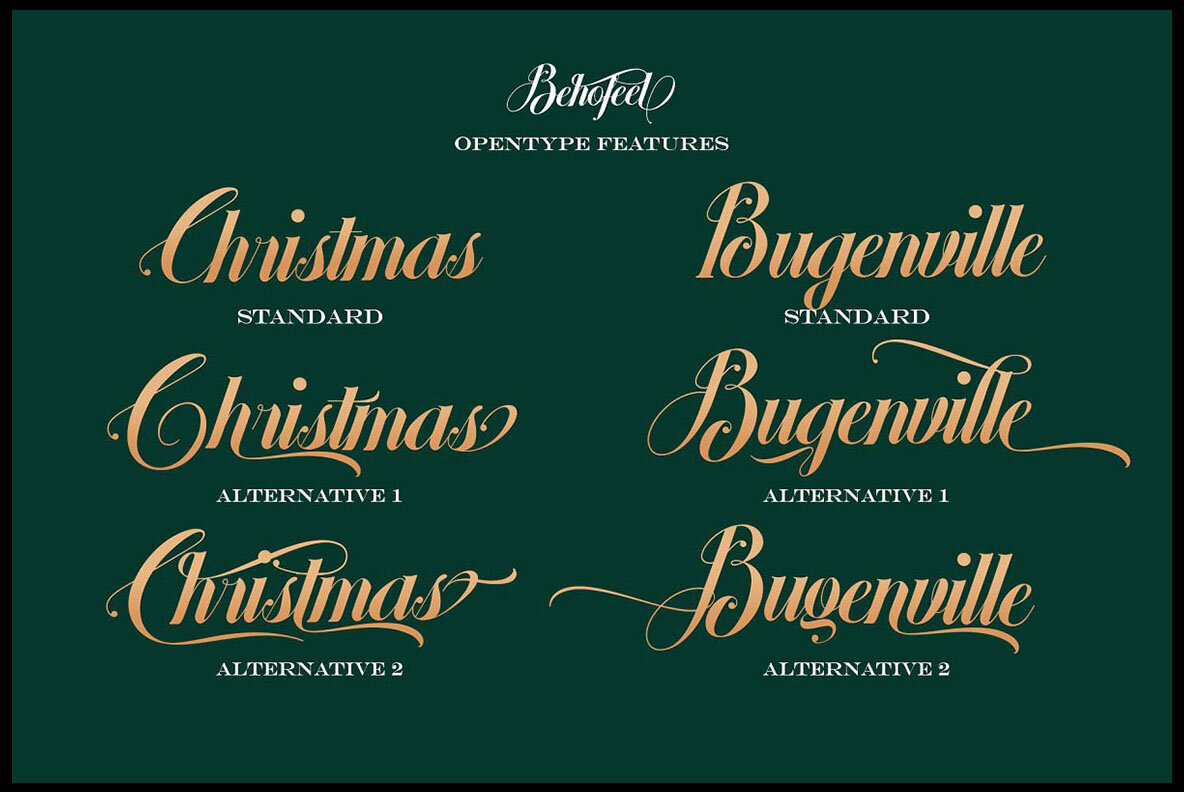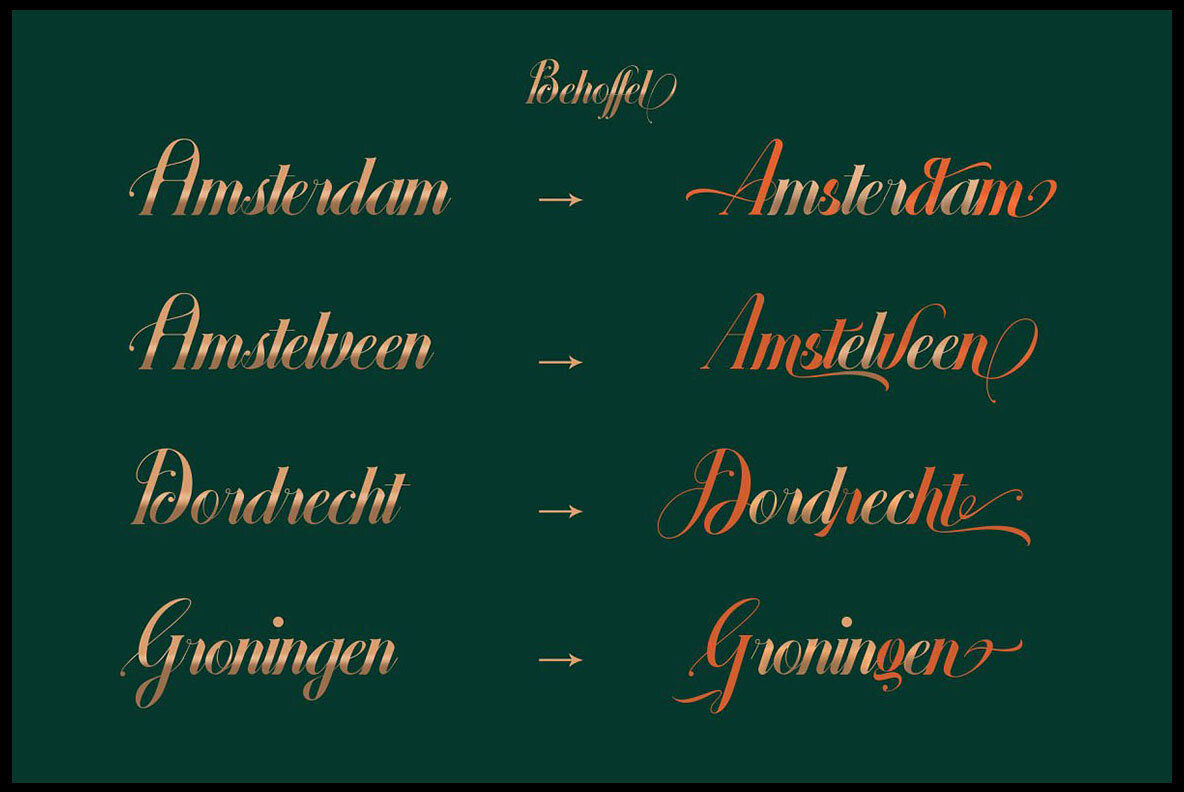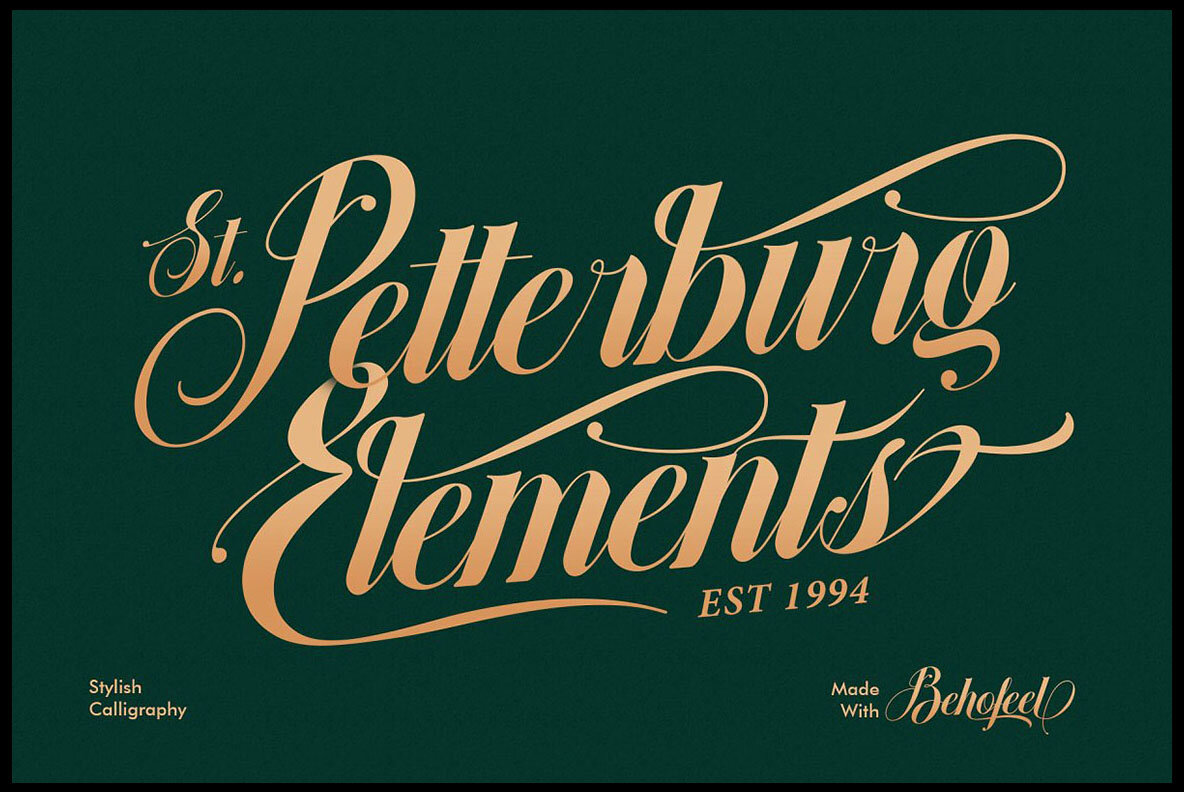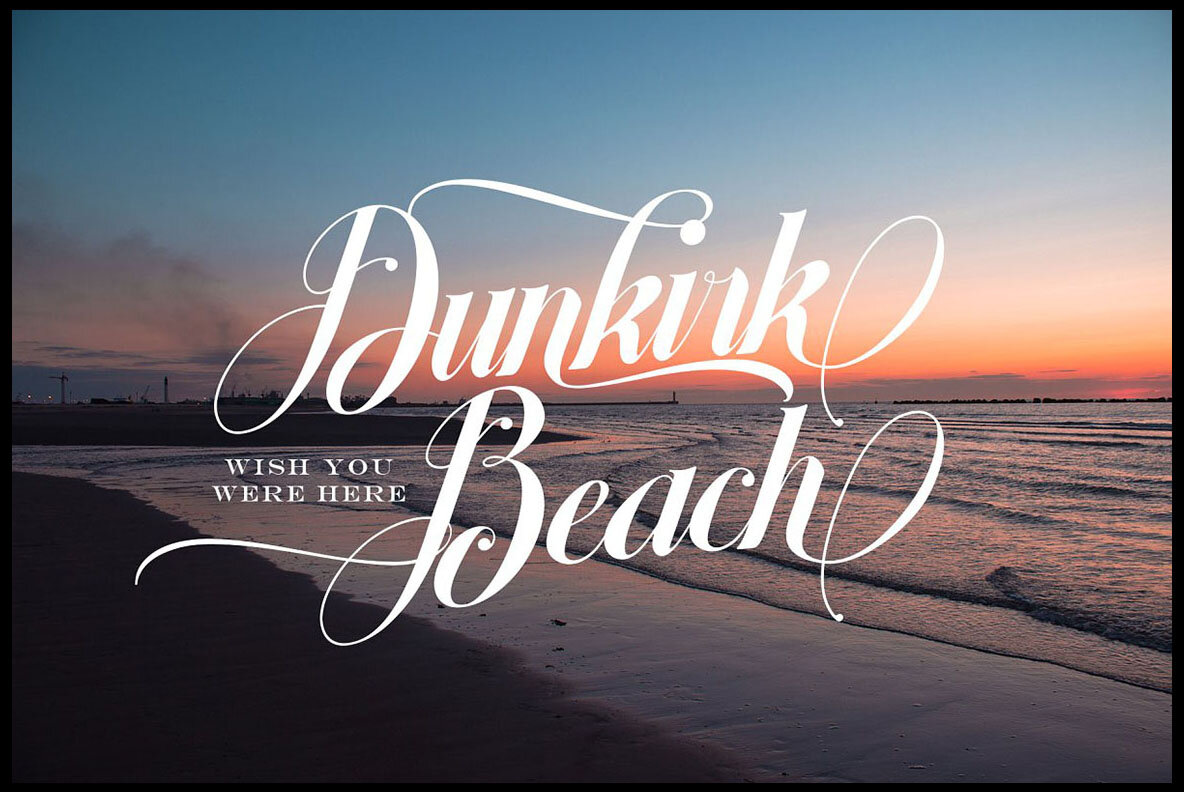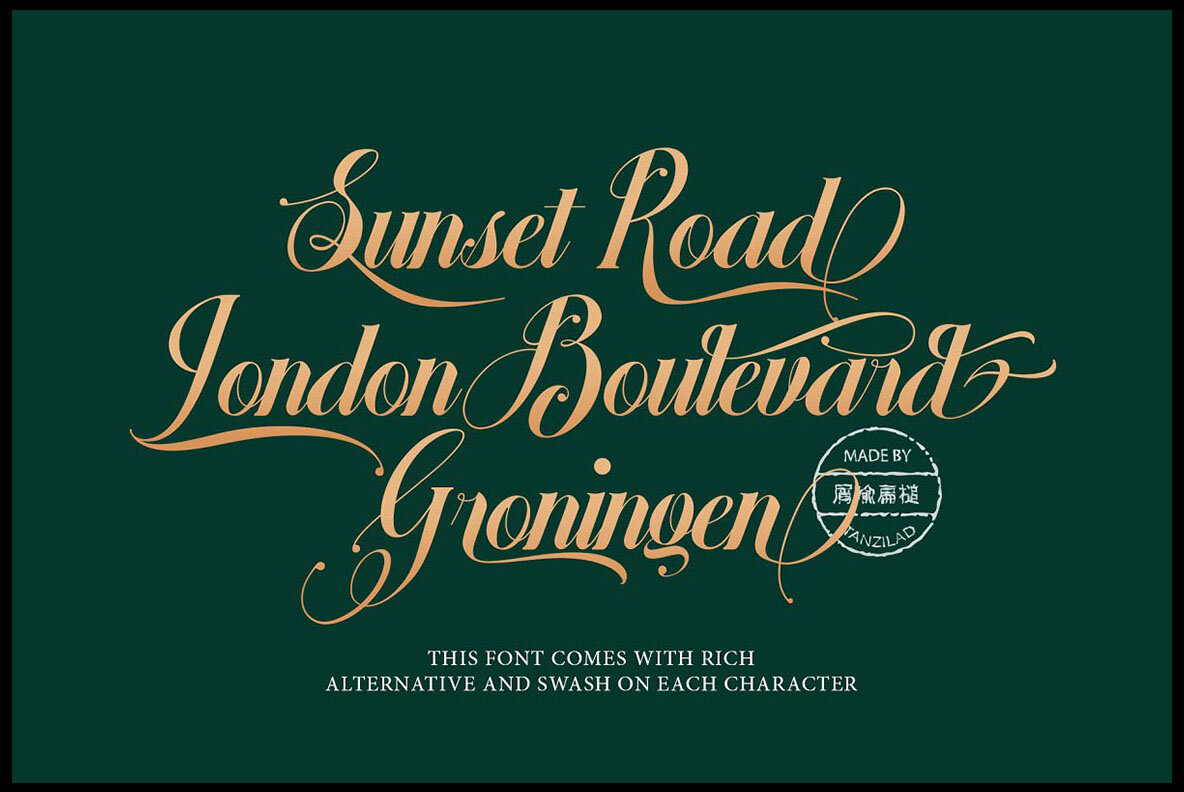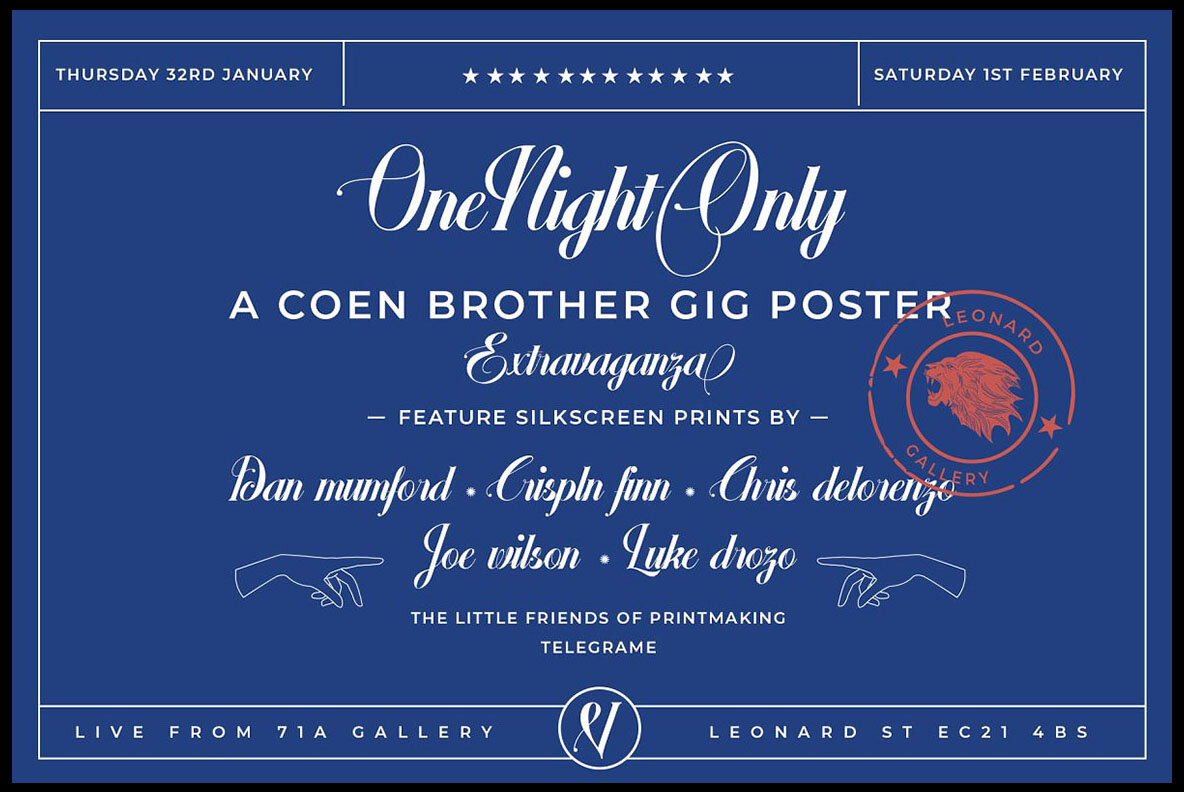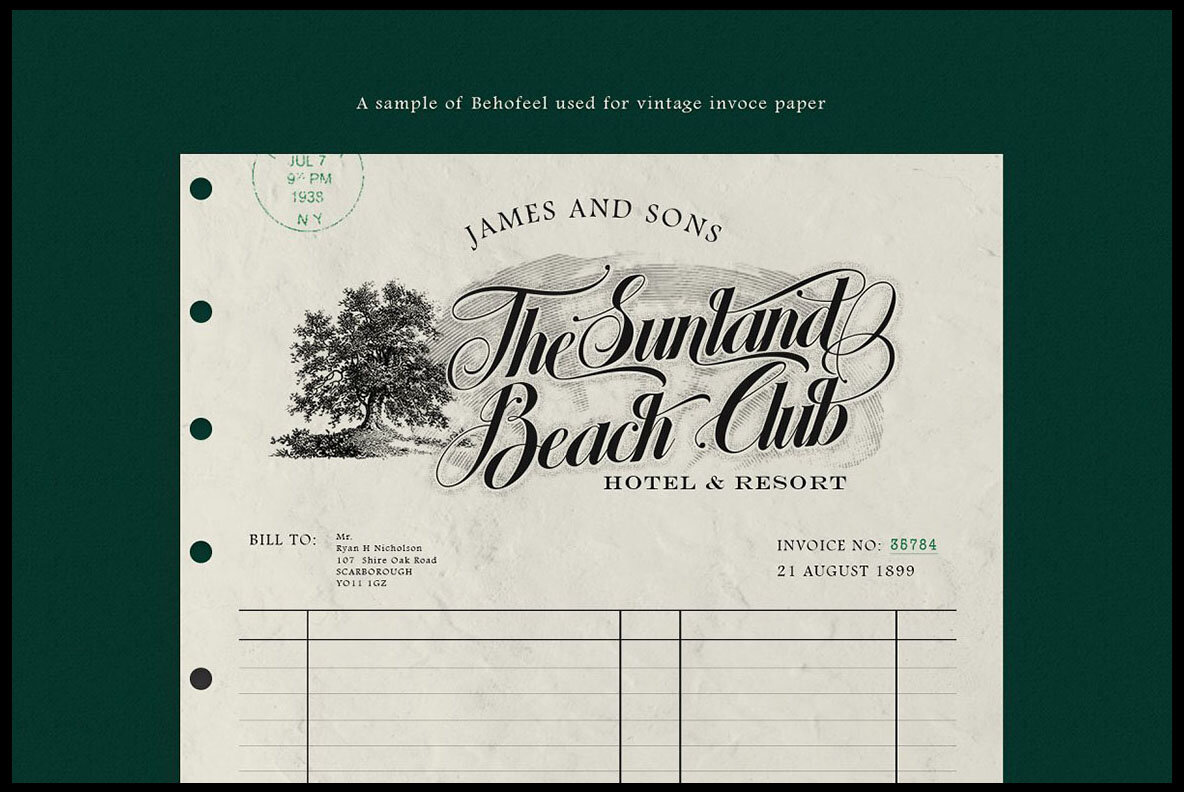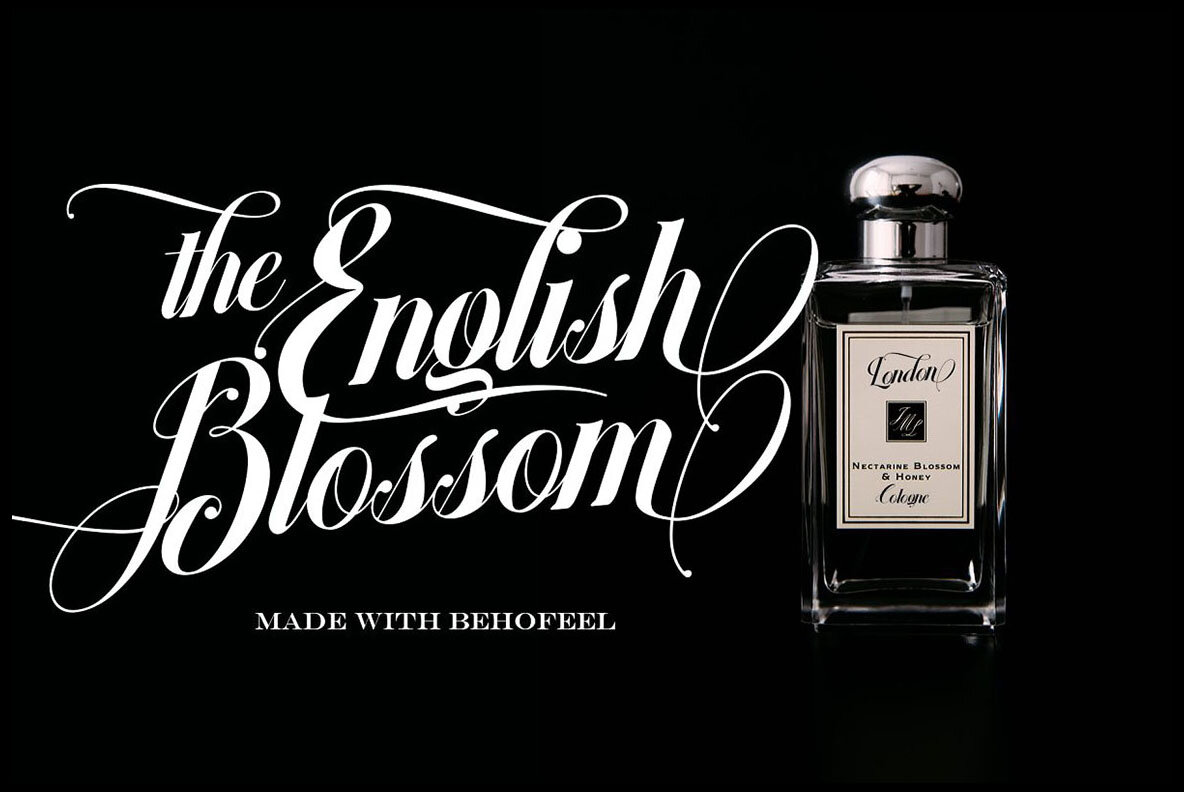
Behofeel Font
Behofeel, designed by Peter Olexa, draws inspiration from vintage decorative letters and cards. Its ornamental style, complete with abundant swashes, allows for the creation of realistic headers and enhances any branding or advertising project.Behofeel: Ornamental Vintage Script Font